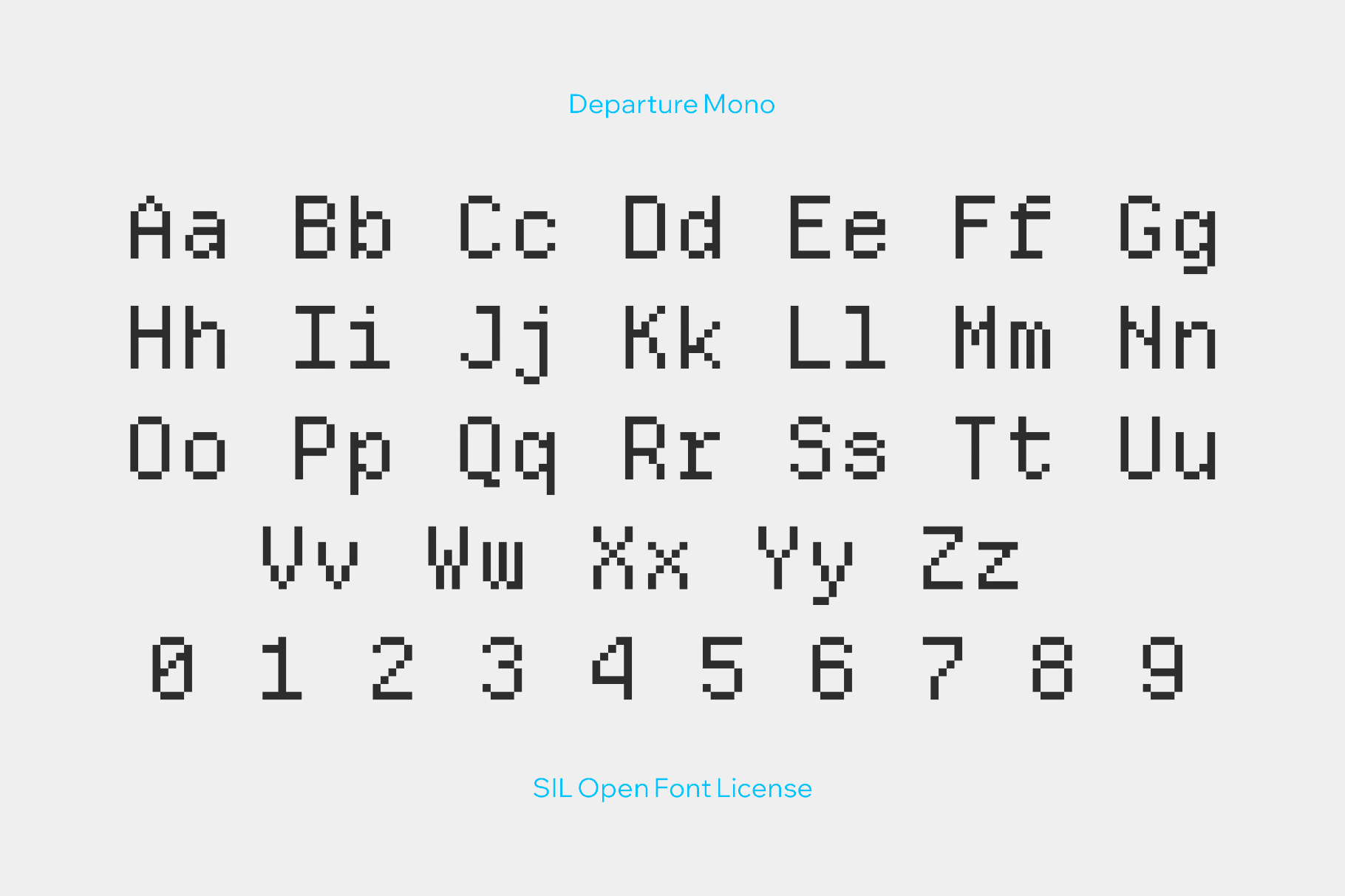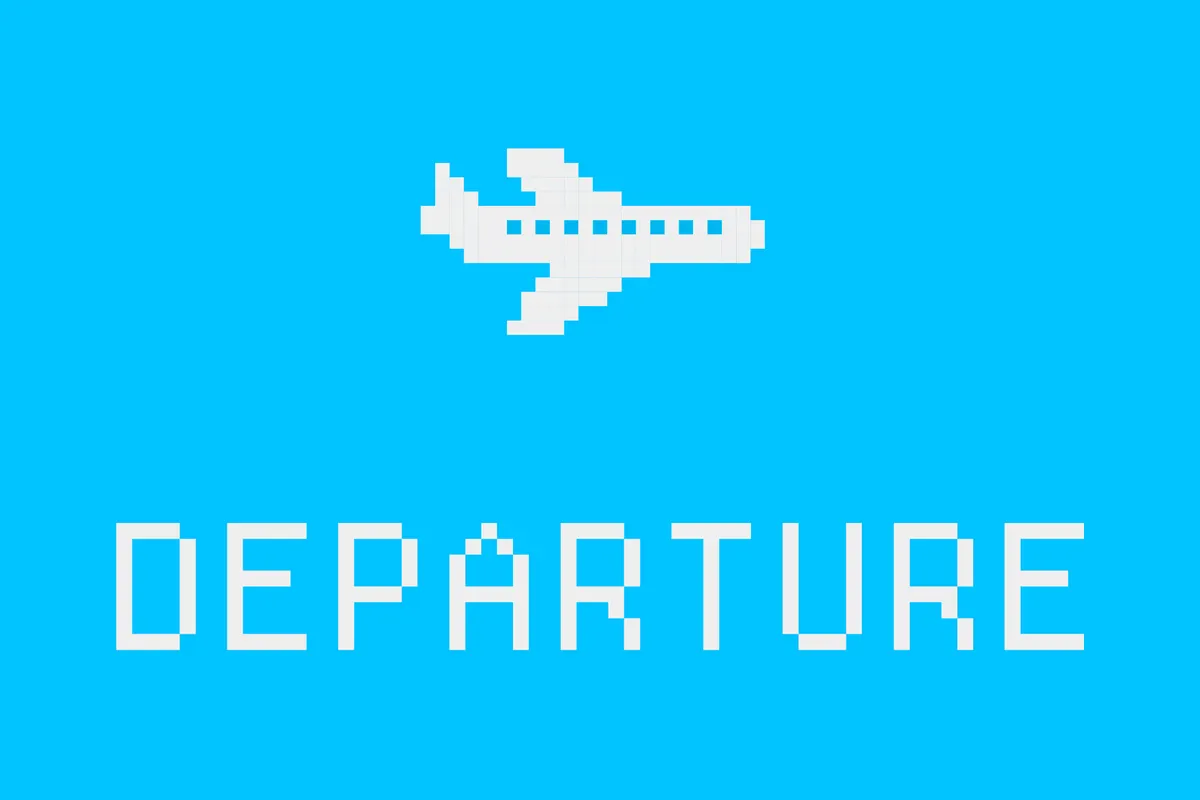
Departure Mono Console Font
Departure Mono features a pixel font with a lo-fi technical voice shaped by early command-line and GUI screens. The typeface fits code editors, IDE themes, terminal and console interfaces, dashboards, data monitors, retro OS mockups, sci-fi-themed game HUDs, technical documentation, API examples, UI overlays for tools and utilities.
- Uppercase and lowercase letters, numbers, punctuation, symbols, international characters, and extra symbols.
- Multilingual support with broad coverage across extended Latin, extended Cyrillic, and Greek scripts.
- A set of dingbats for icons, separators, and decorative details.